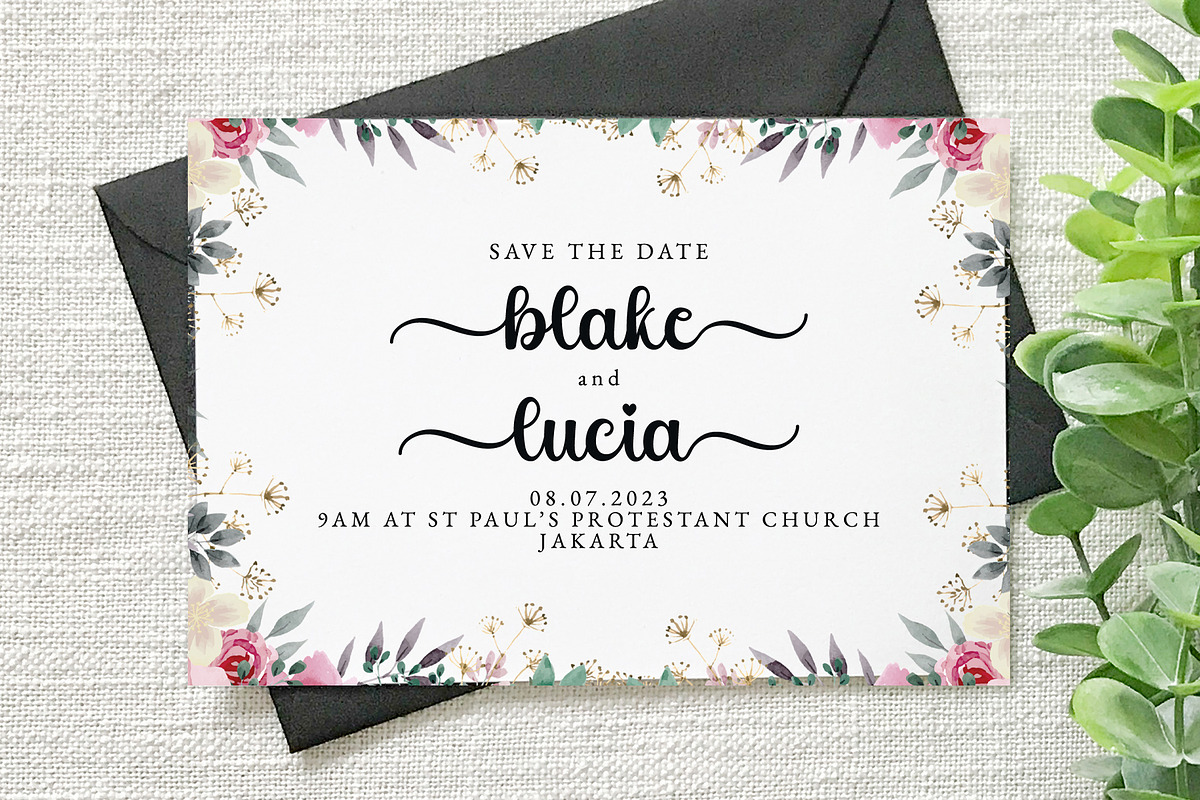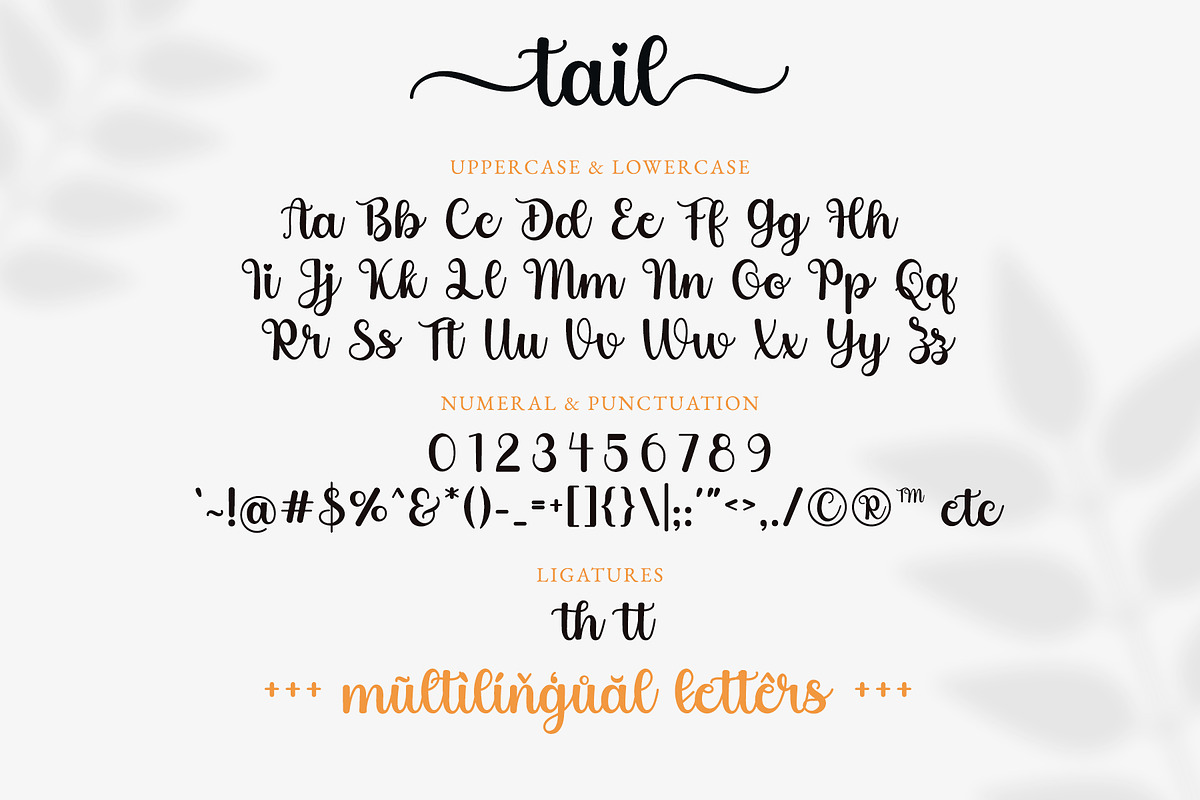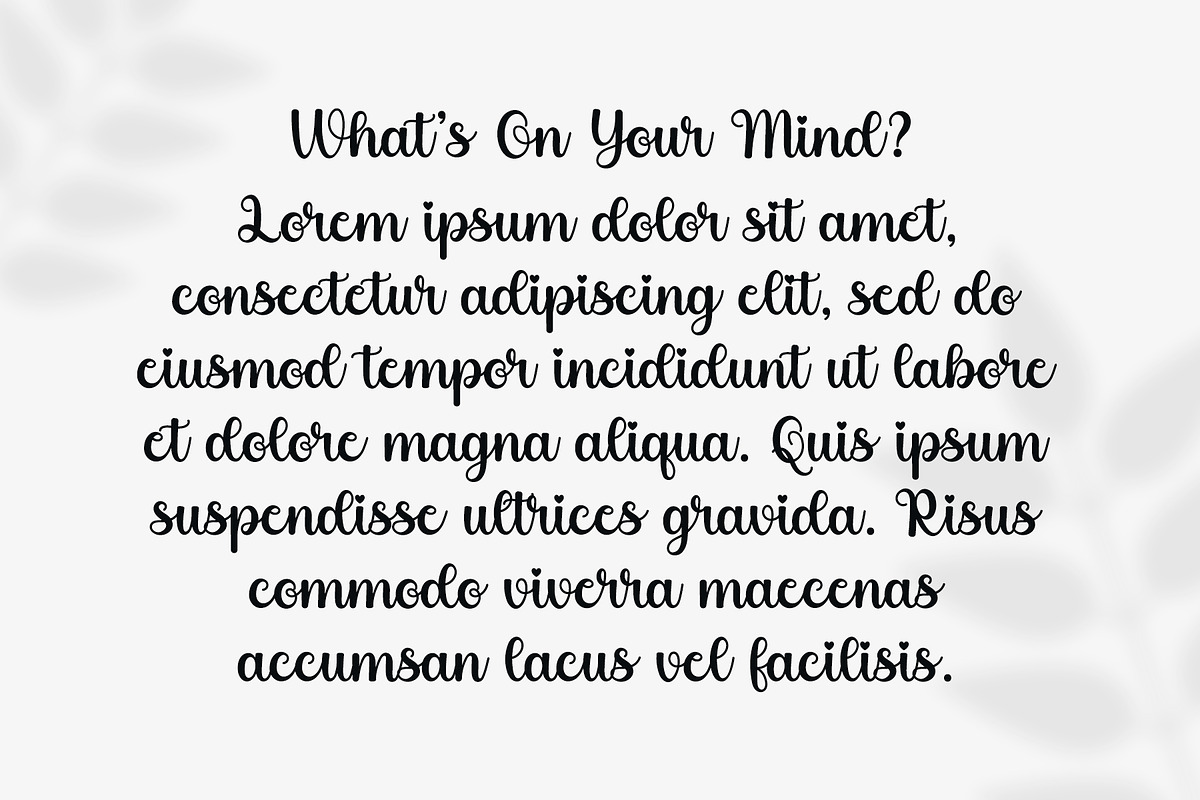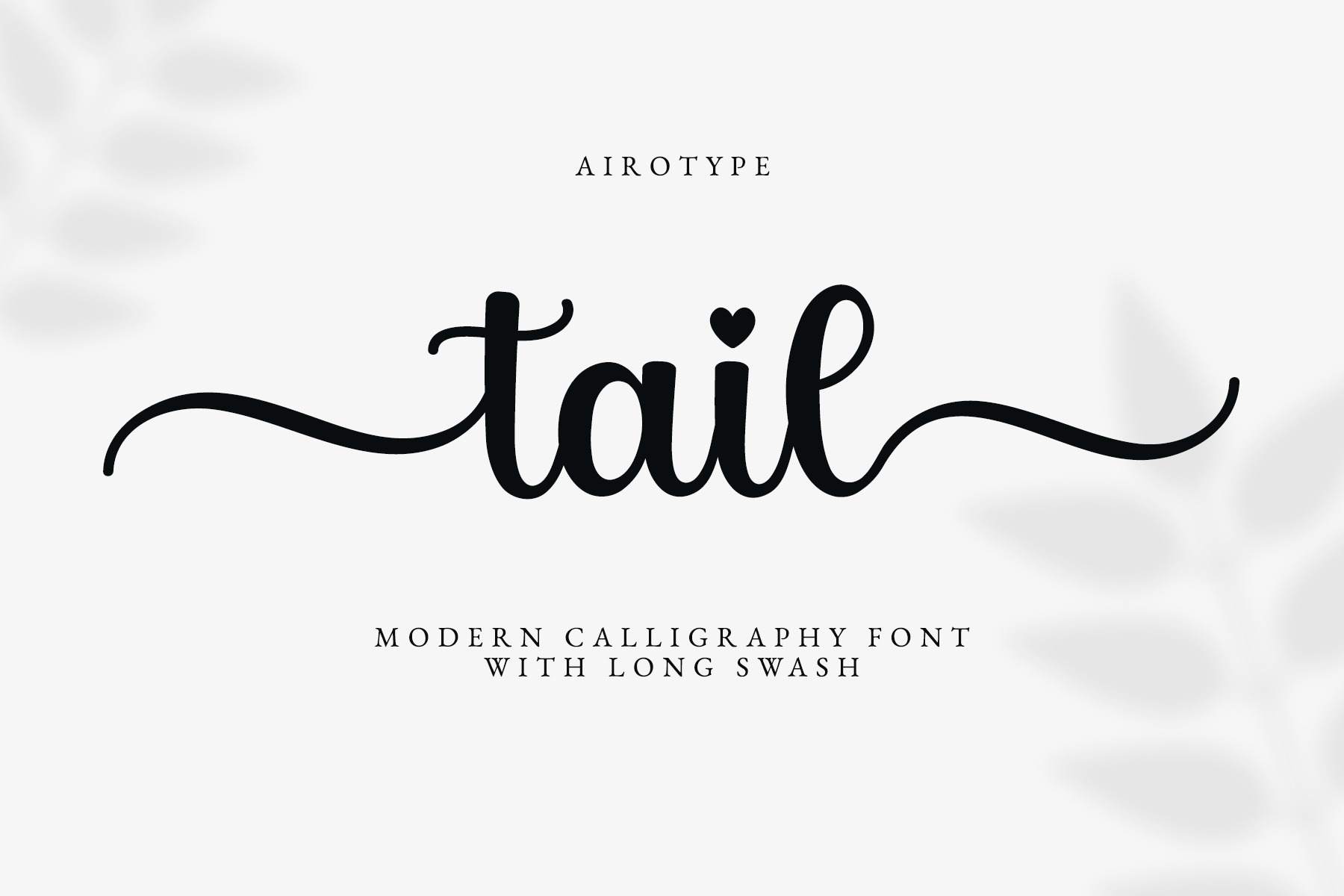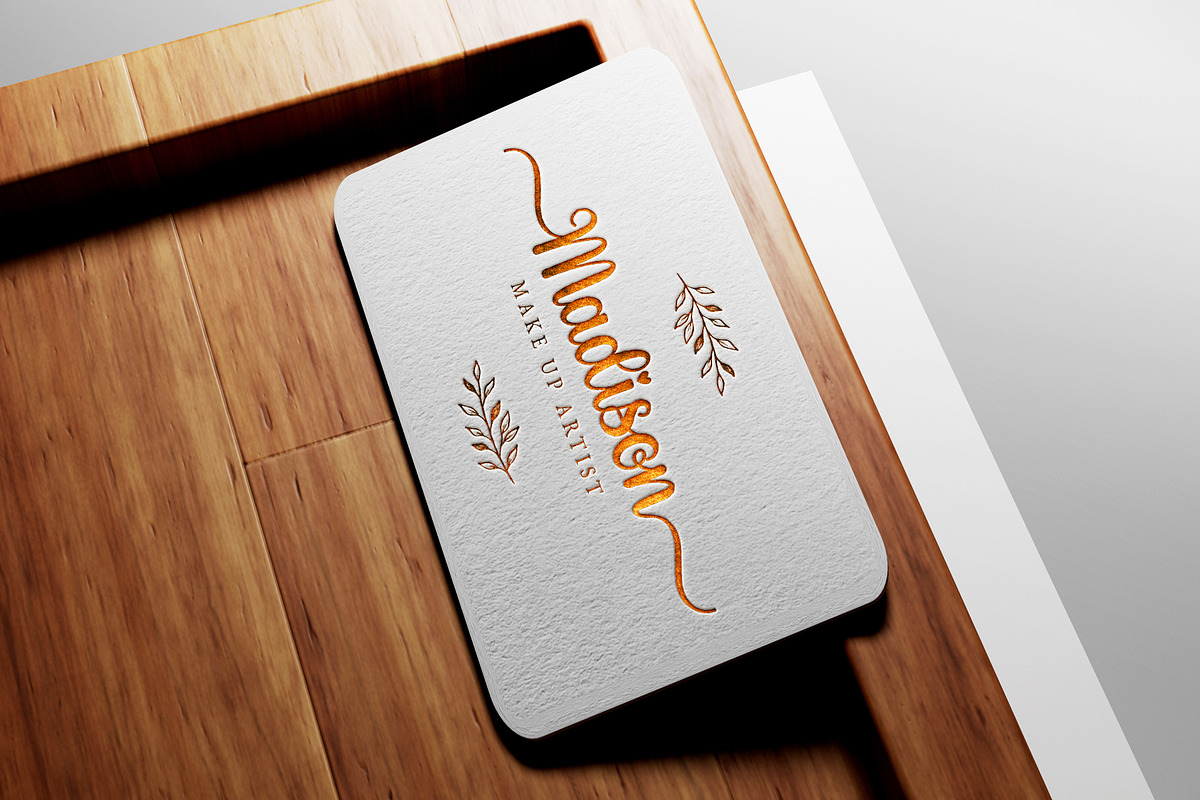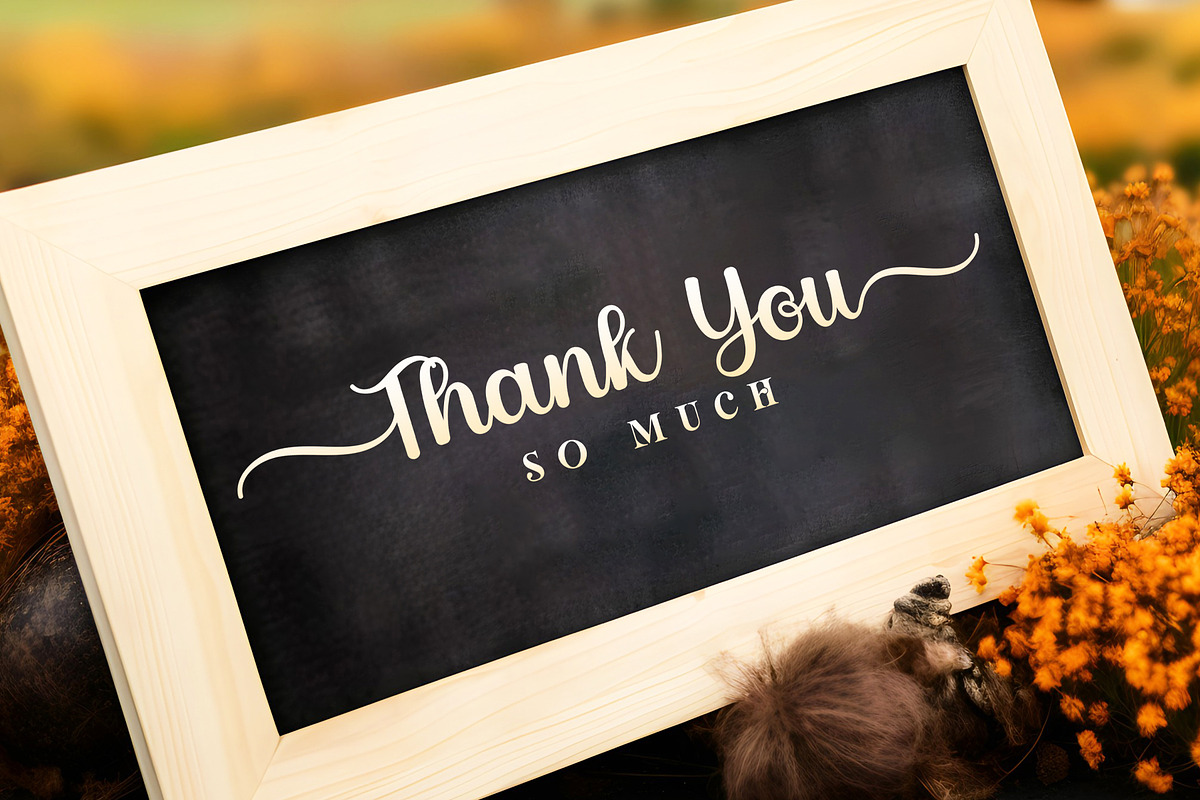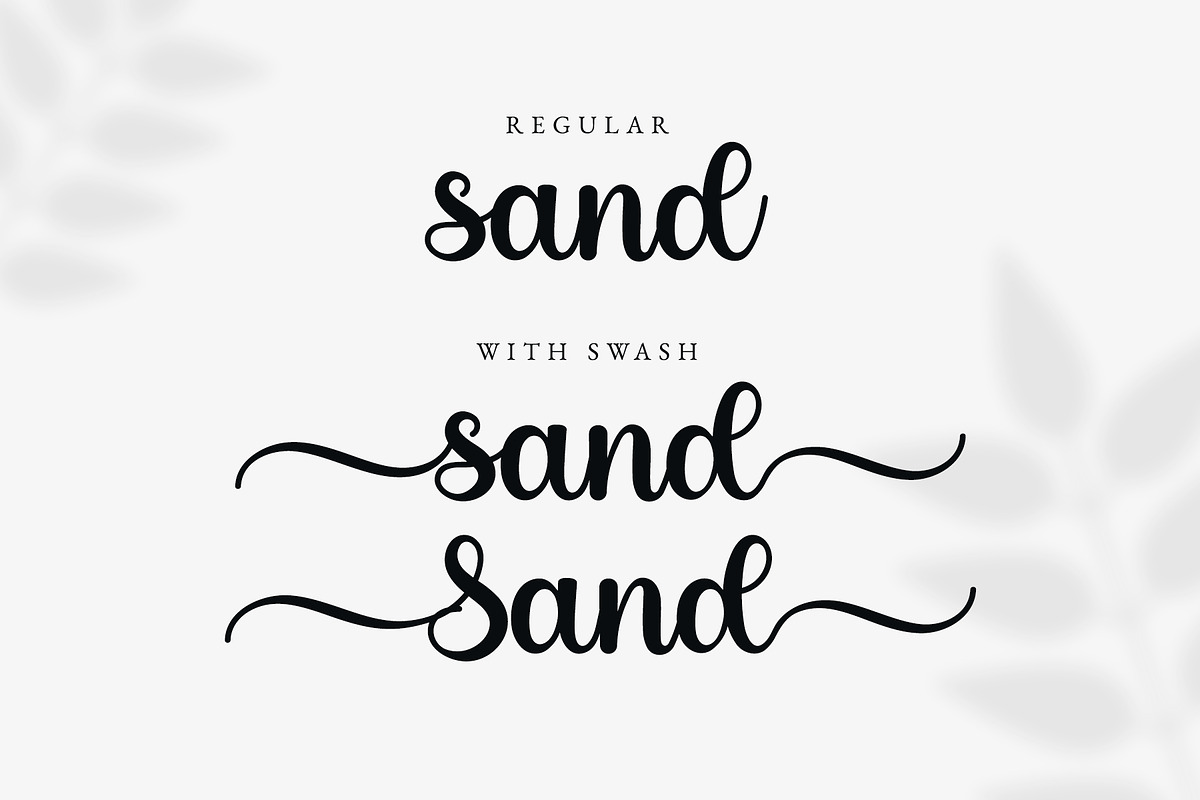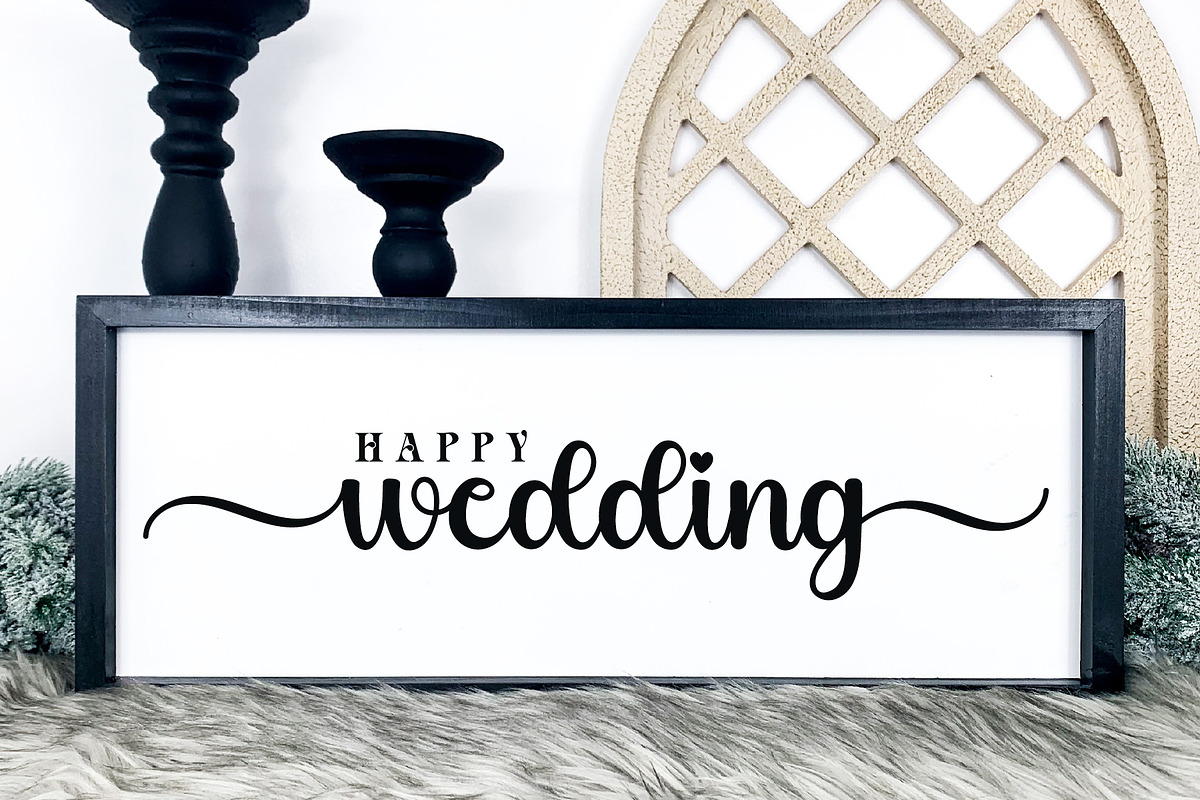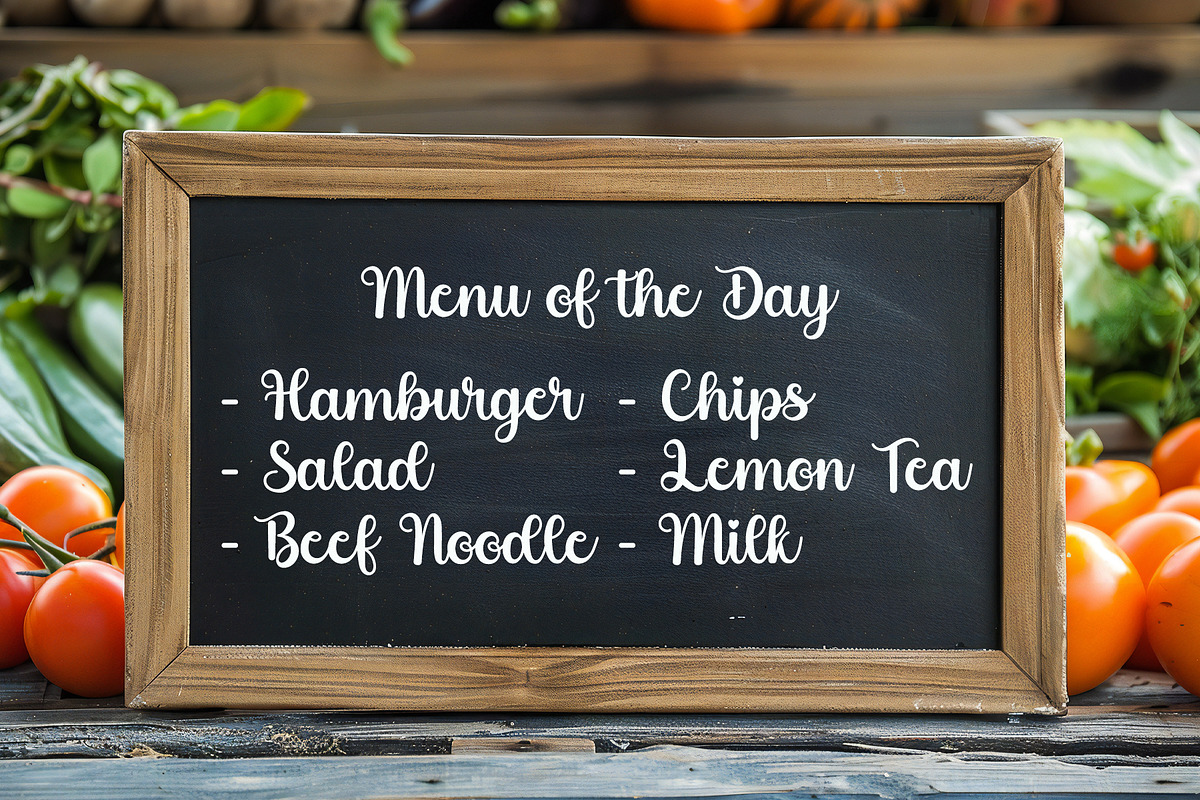
Tail Font - Script Font with Swash
Tail is simple modern script calligraphy font. This font radiates elegance, loves, and beauty.
It has tail swash in front and back to give more elegance and beauty into the design.
Tail is beautiful font for design with elegant and modern vibes, such as wedding, invitation, stickers, sublimation, cards, birthday, t-shirt design, farmhouse design, and others.
- Uppercase and Lowercase (including tail swash)
- Most Multilingual Accent